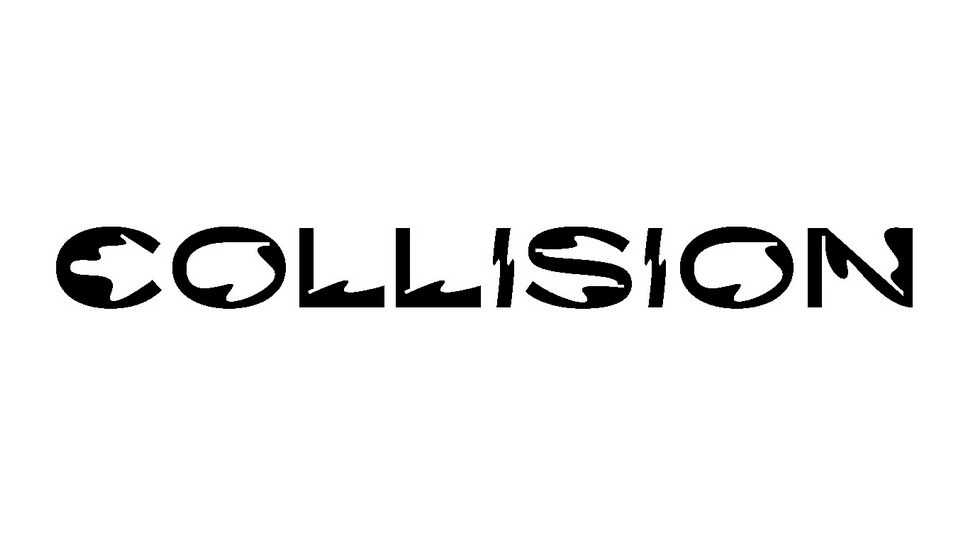
Download Collision font, a custom display typeface with unique distorted shapes. Collision perfectly fits for posters, headlines, branding and other artworks.